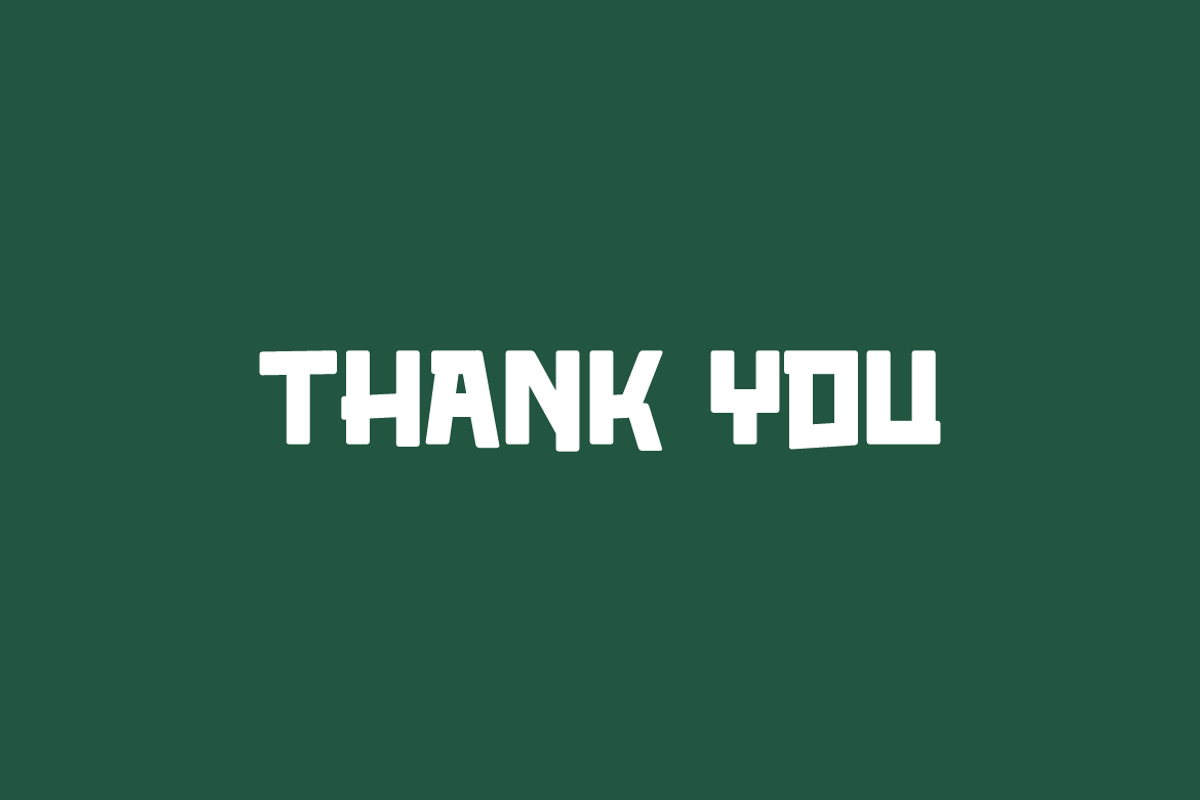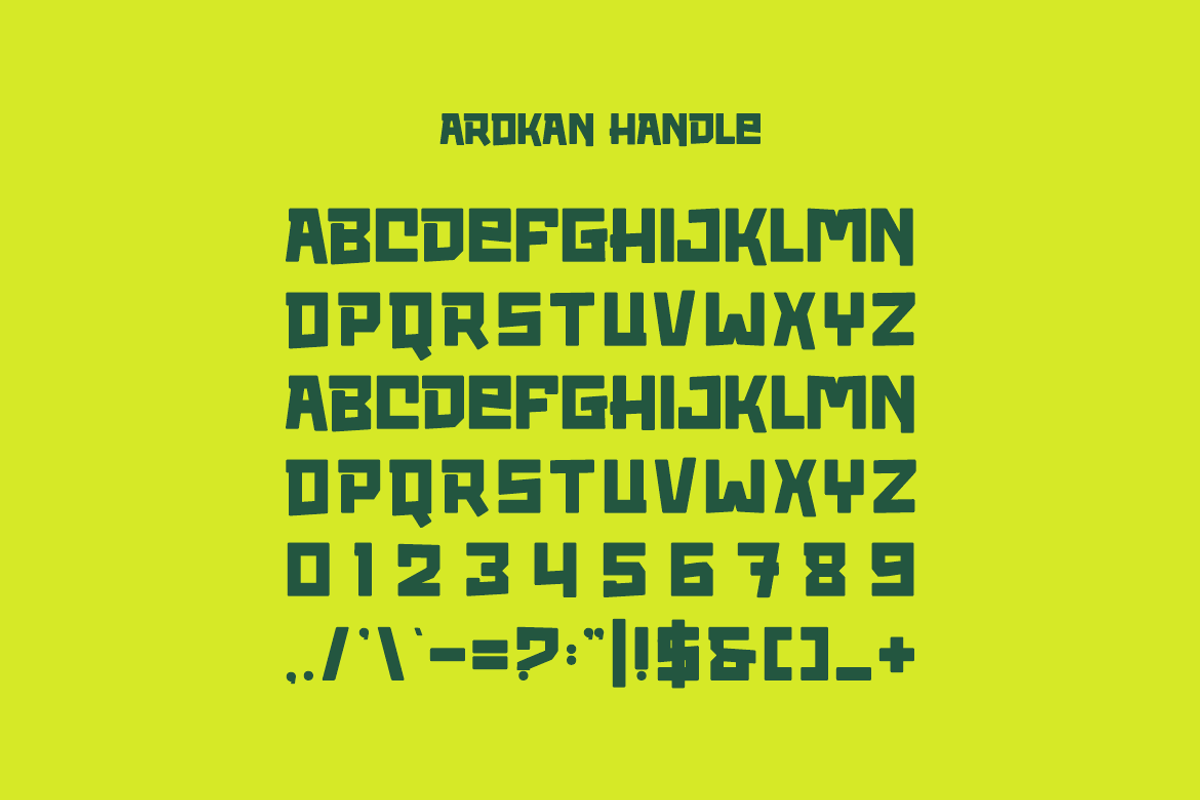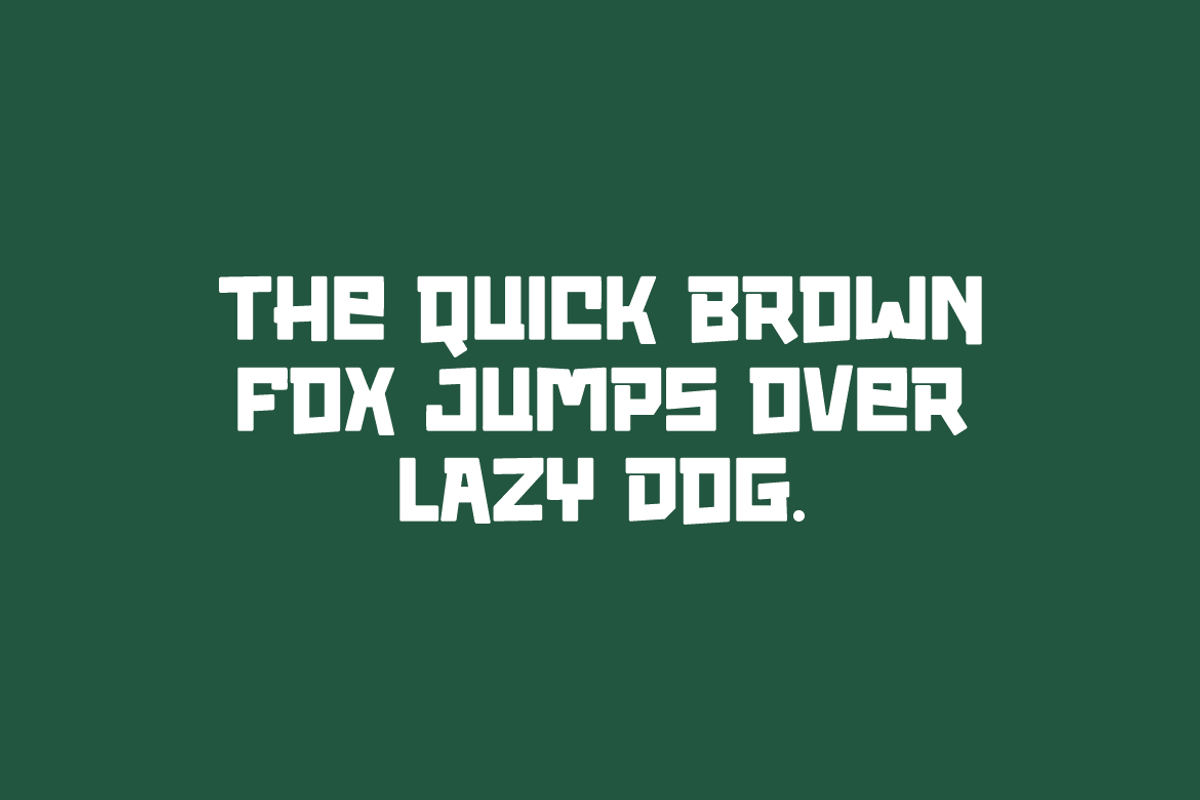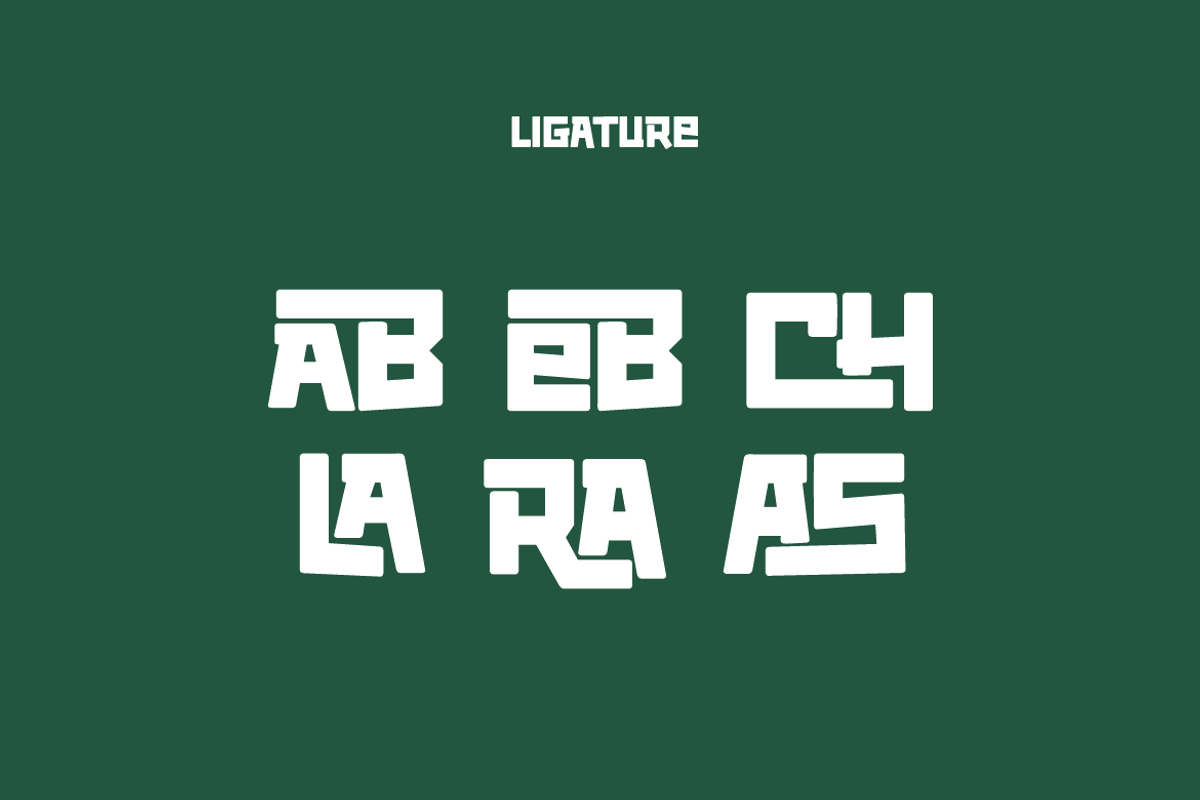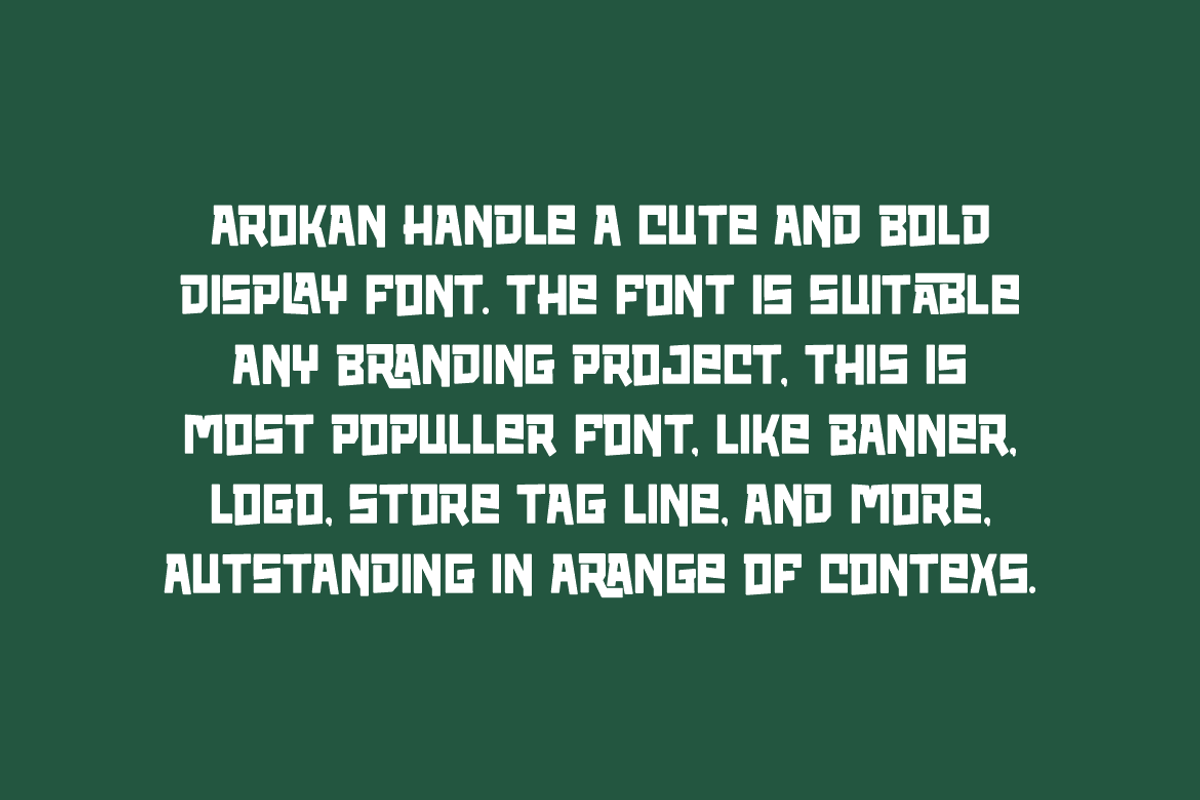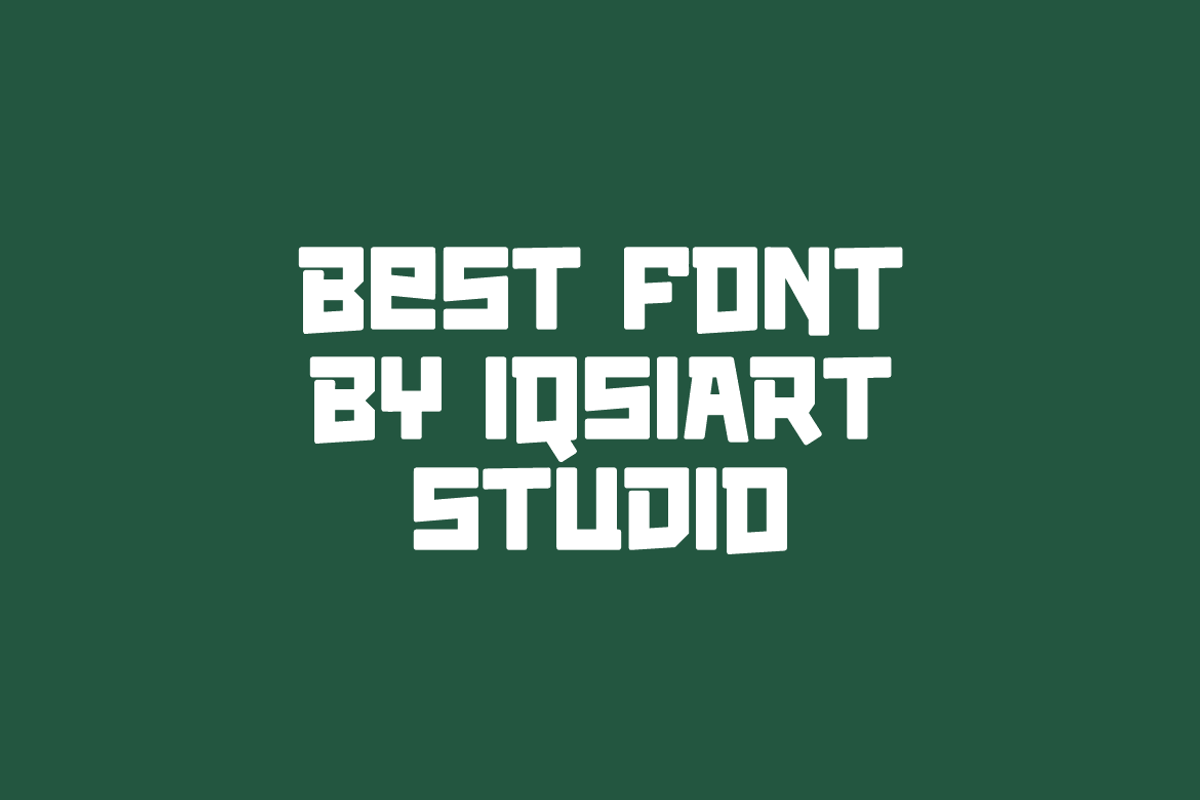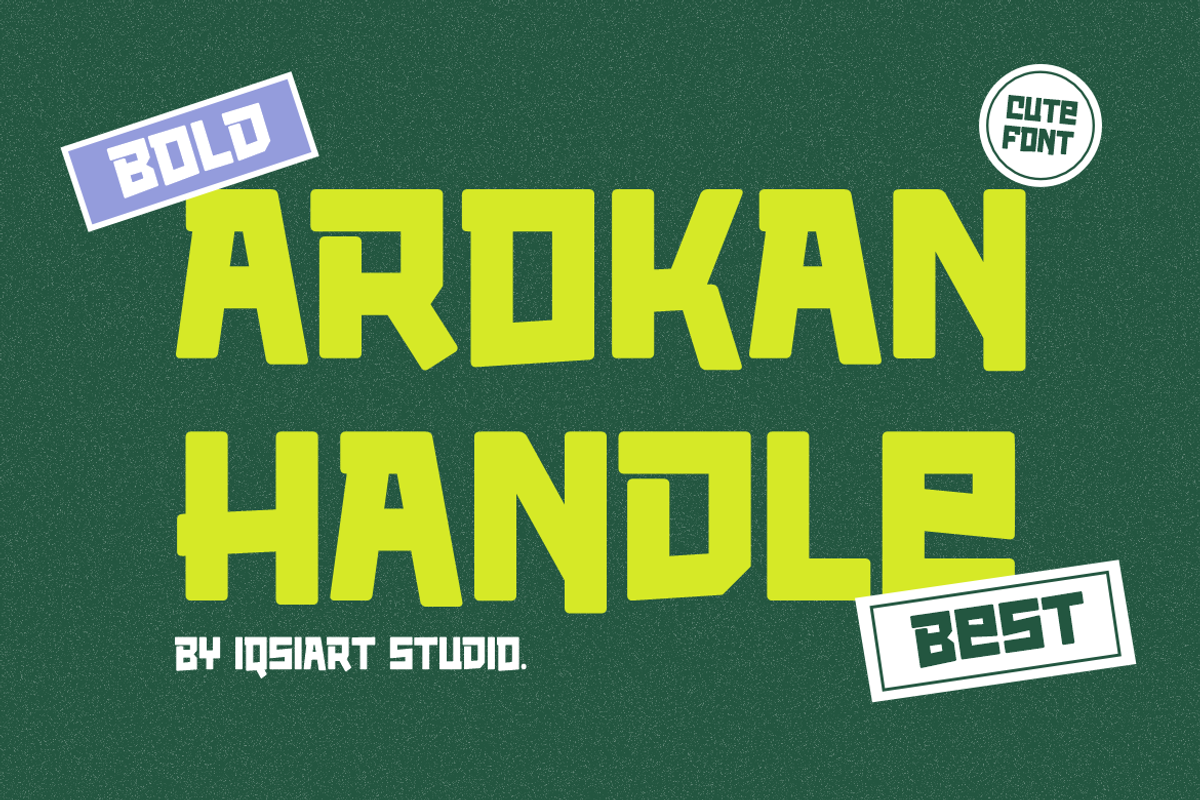
Arokan Handle - Round Font
Arokan Handle Font is a best and authentic display font. This font can be used for your various needs. We provide various themes and font styles. visit our profile to get a wide variety of themes and different font styles you need.